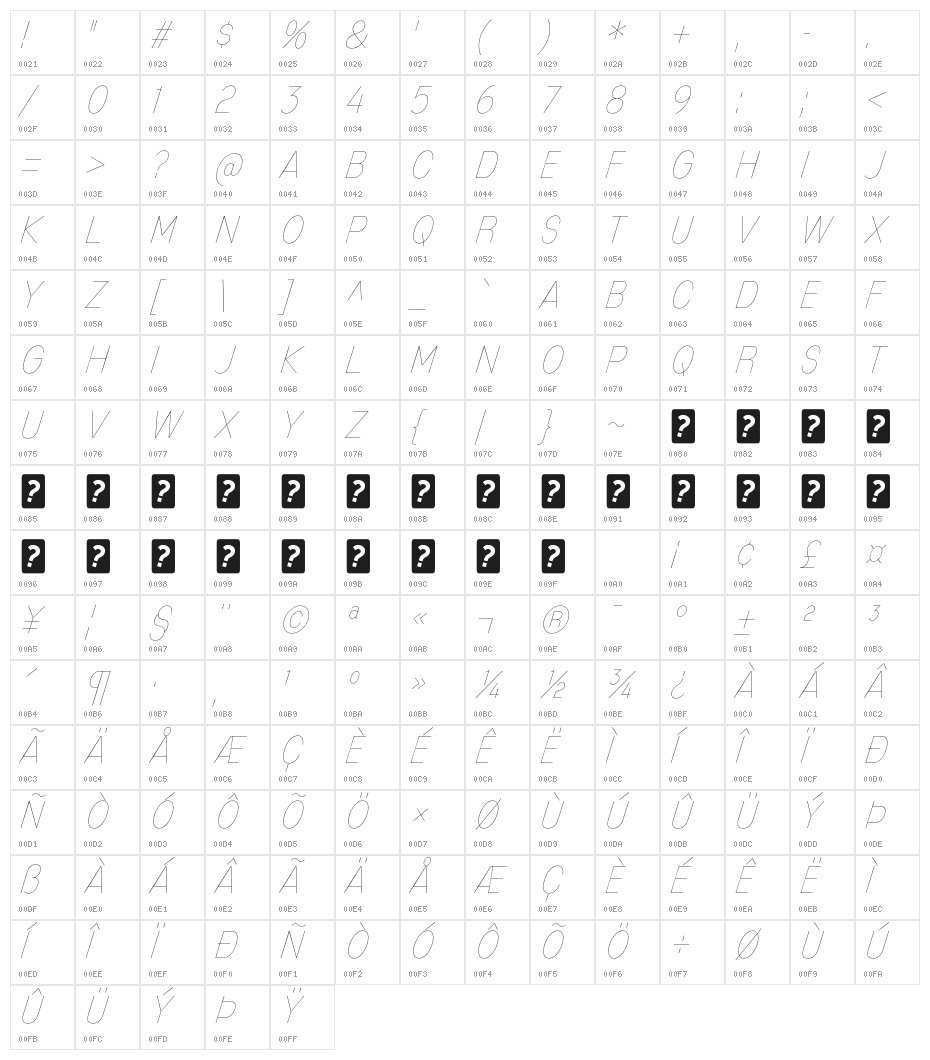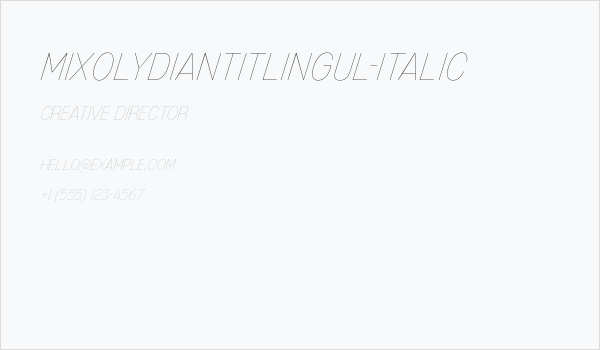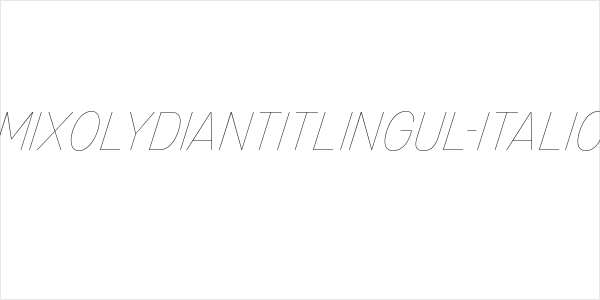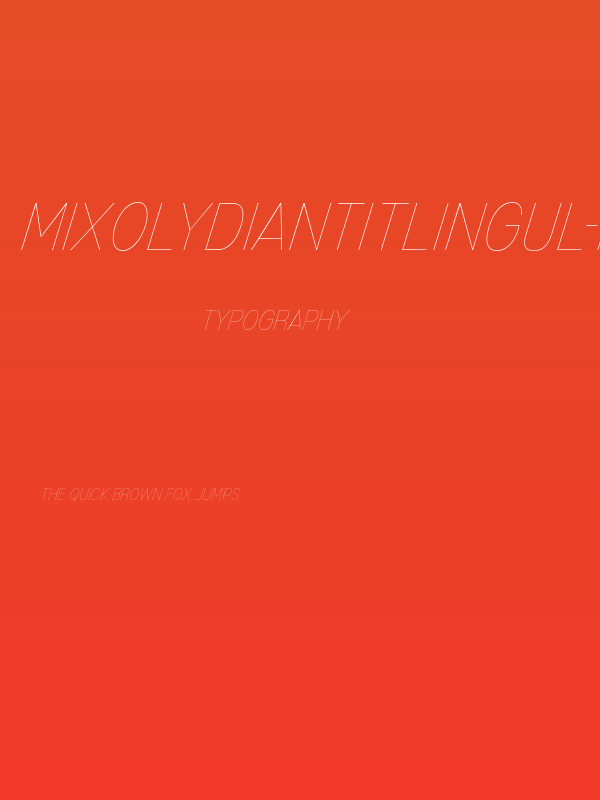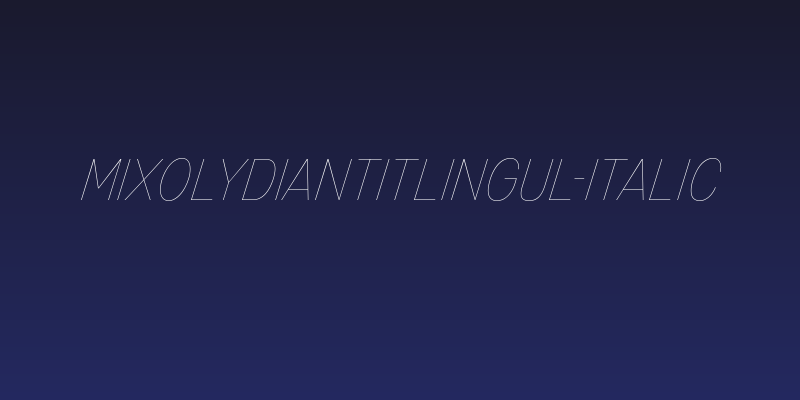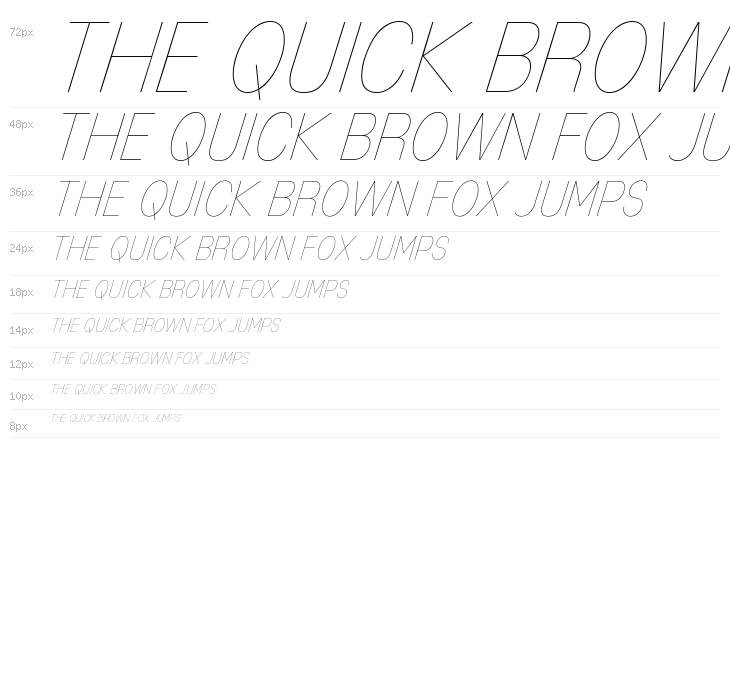
MixolydianTitlingUl-Italic Font
MixolydianTitlingUl-Italic Description
This font features an elegant and modern design with a sleek, italicized style. The characters are thin and elongated, giving a sophisticated and airy appearance. The uppercase and lowercase letters maintain a consistent slant, enhancing the fluidity and dynamic nature of the font. The numerals and special characters are crafted with the same attention to detail, ensuring uniformity across all glyphs. The overall look is clean and minimalistic, making it suitable for contemporary design projects.